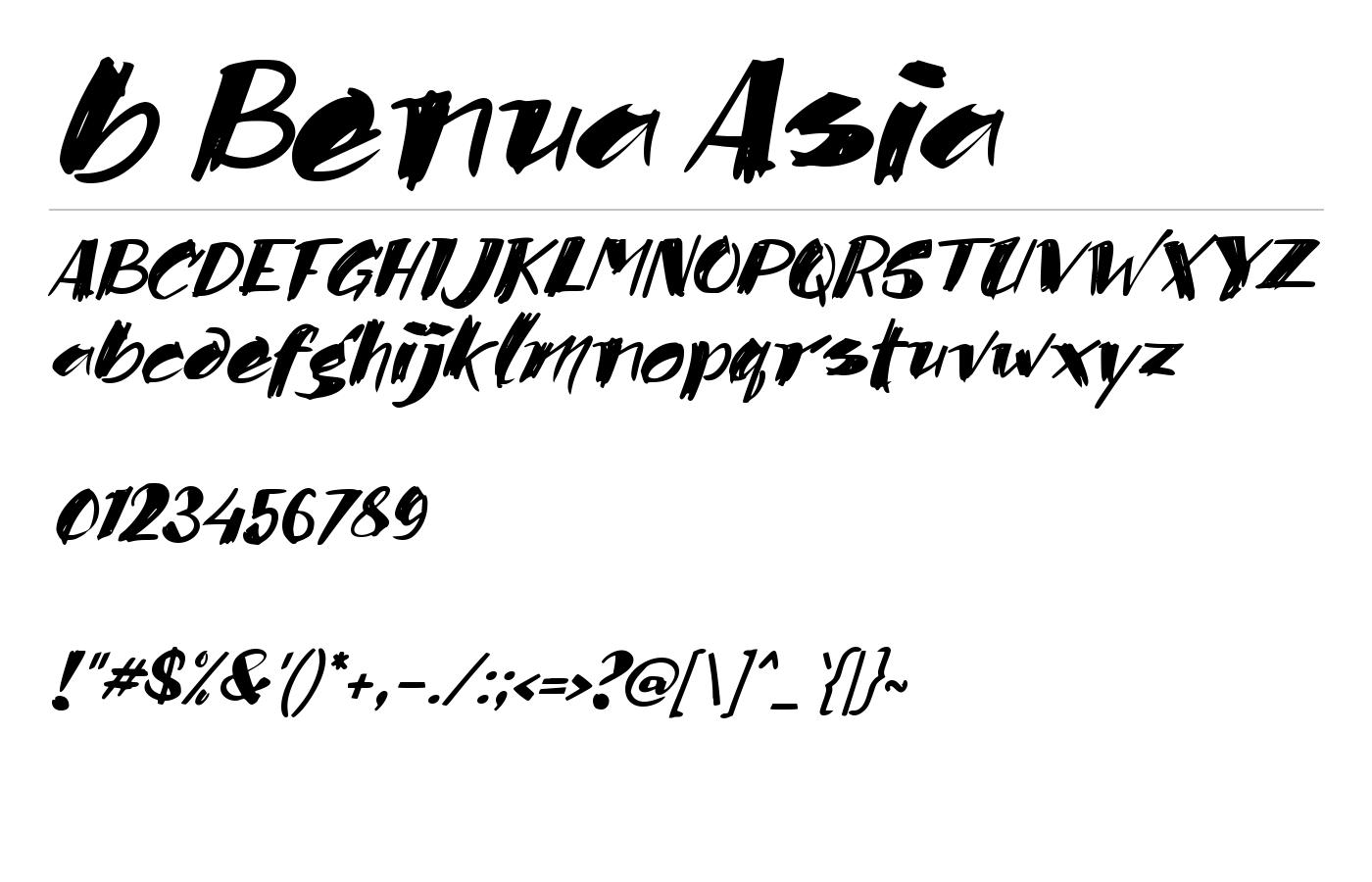
B Benua Asia is a bold, expressive script font with a spontaneous, brush-painted feel that captures energy and movement. Its irregular strokes and high contrast create a dynamic, artistic style ideal for creative projects, logos, and headlines seeking a lively, informal personality. This font works well where a unique, handcrafted look is desired to add a touch of bold flair and artistic spontaneity.
b Benua Asia Font